Zero duck mark
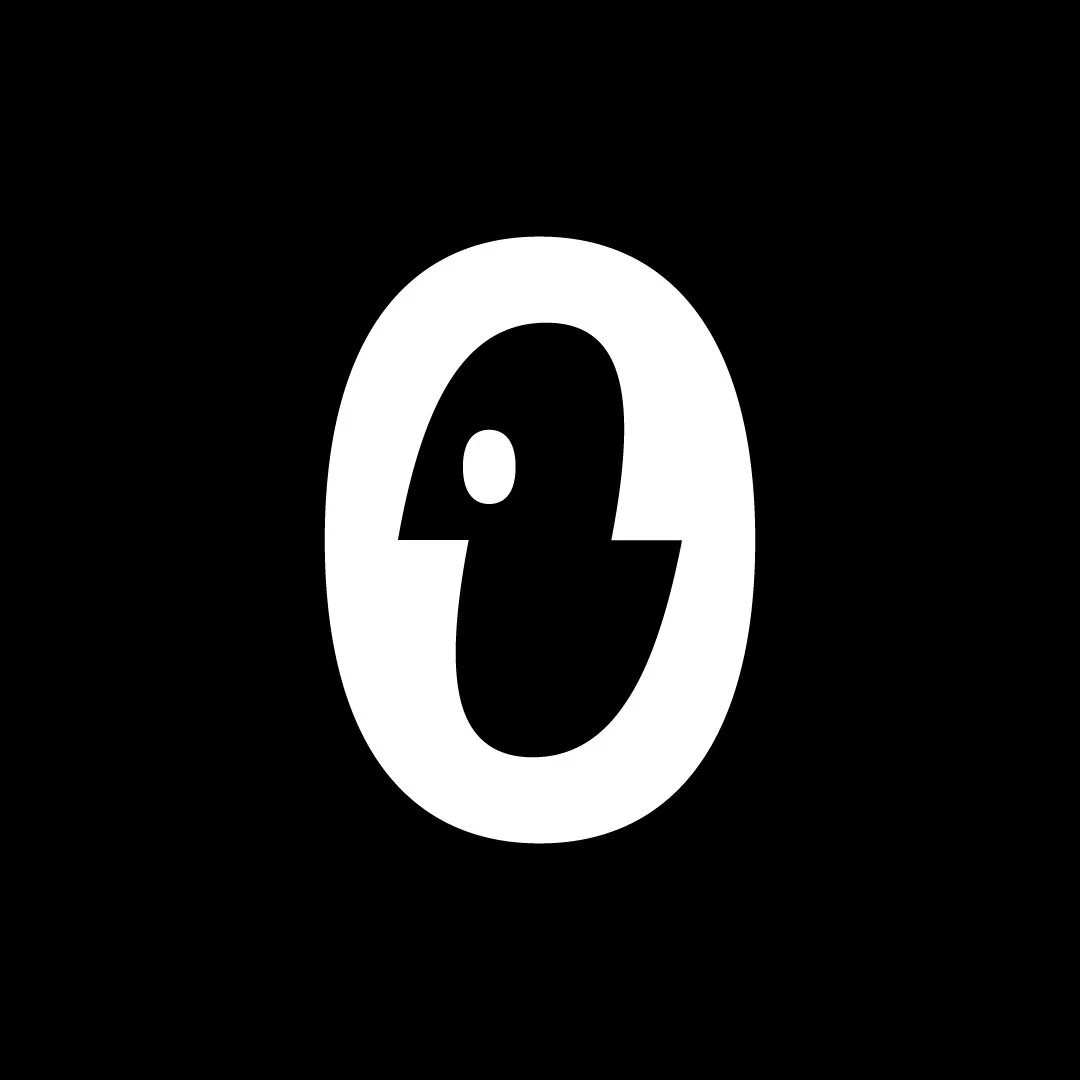
Zero duck mark
A minimalist symbol depicting a slashed zero with a stylized little bird inside the eye. Could fit apps, products, startups and businesses in the field of technology, gaming, crypto, software, etc.